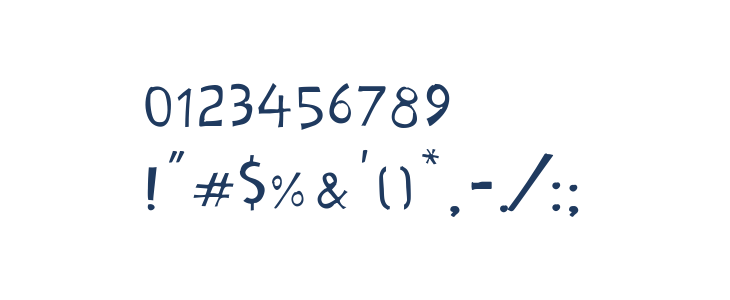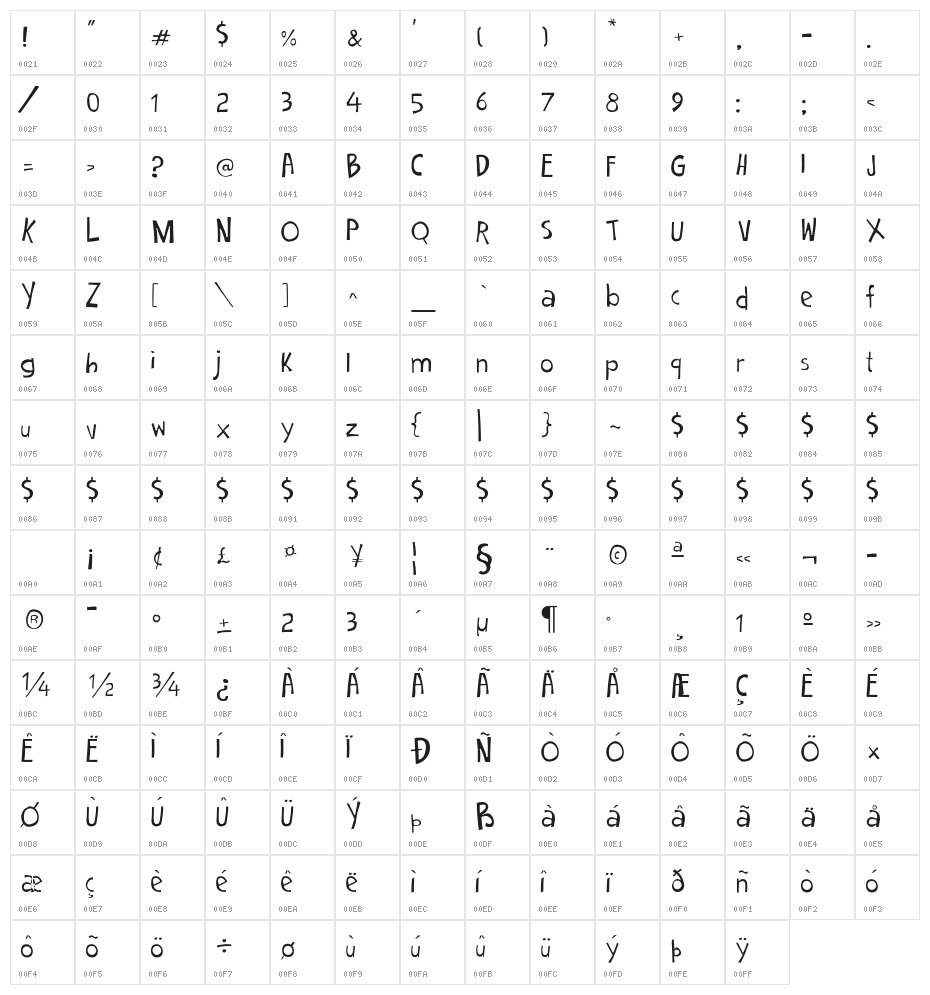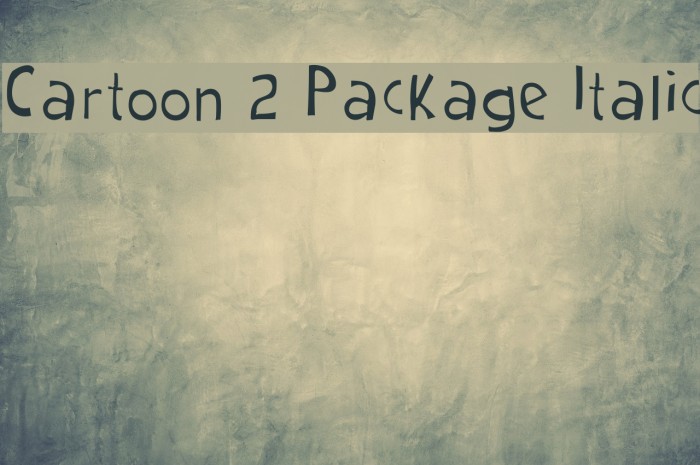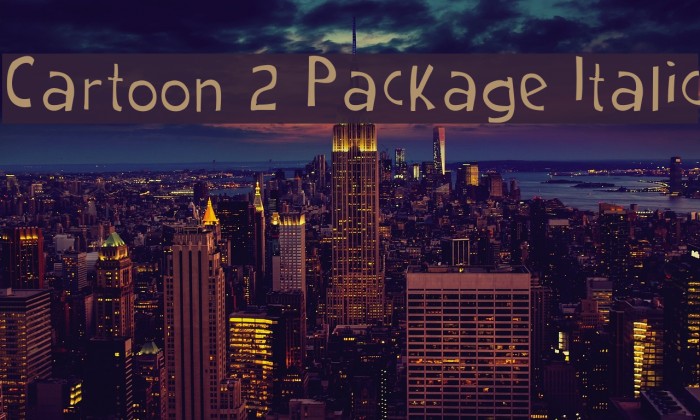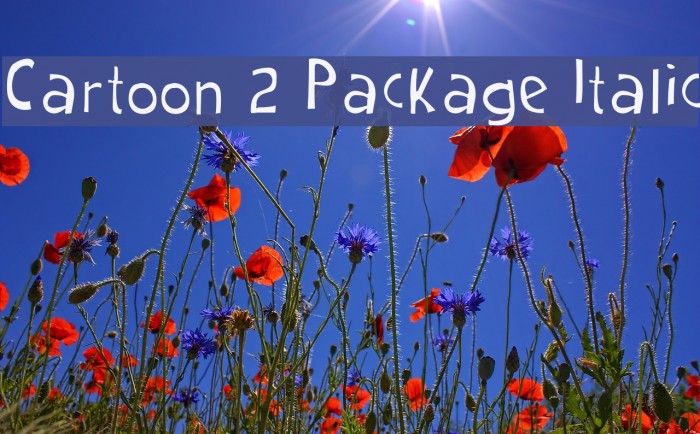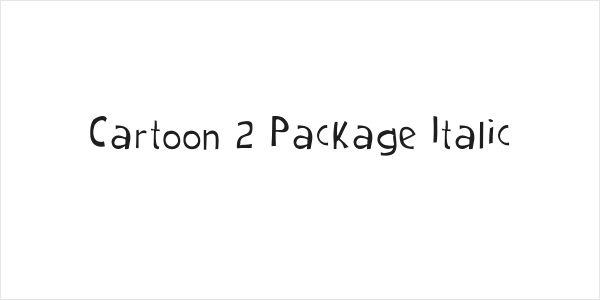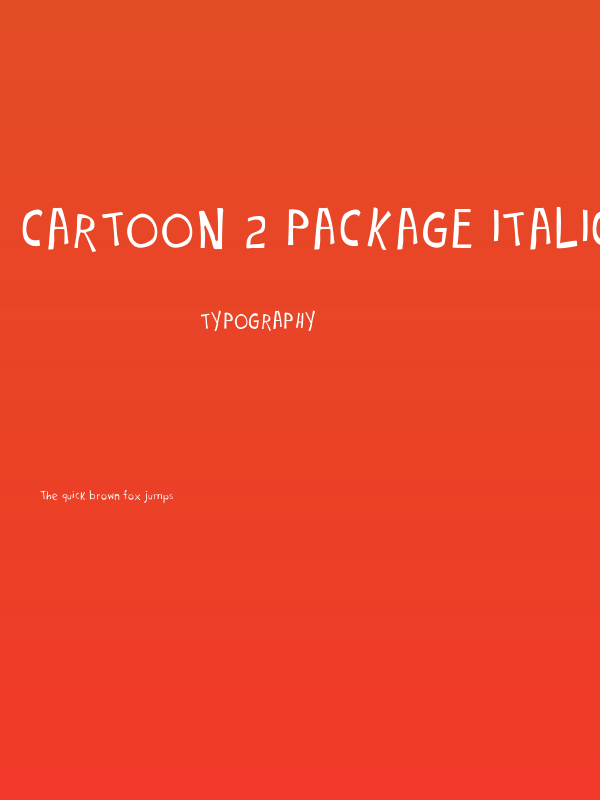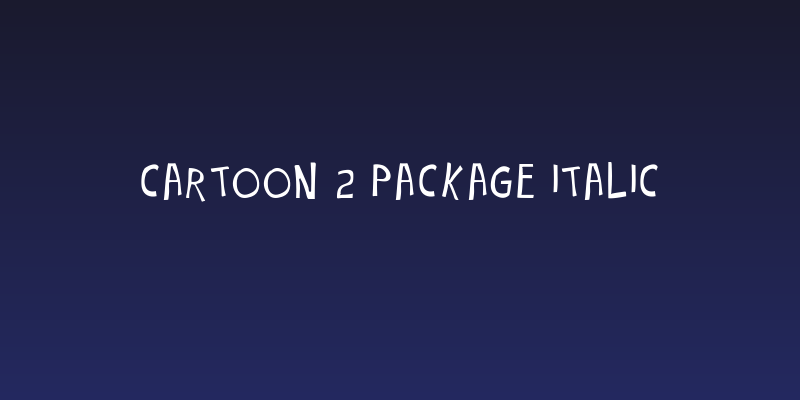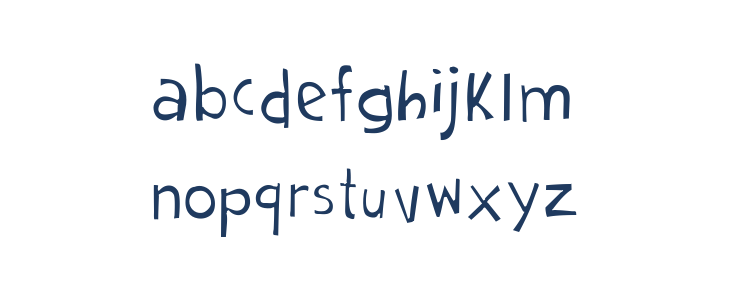
Cartoon 2 Package Italic Font
Cartoon 2 Package Italic Description
This playful and whimsical font features irregular, hand-drawn characters that convey a sense of fun and creativity. The uppercase and lowercase letters are slightly tilted, adding to the informal and casual feel. The strokes vary in thickness, giving the font a dynamic and lively appearance. The numbers and special characters maintain the same quirky style, making it suitable for projects that require a touch of humor or lightheartedness. The overall design is reminiscent of comic or cartoon lettering, making it ideal for children's books, playful branding, or any project that aims to evoke a sense of joy and imagination.
| Proposed Projects | Children's books, playful branding, comic strips, greeting cards, and informal invitations. |